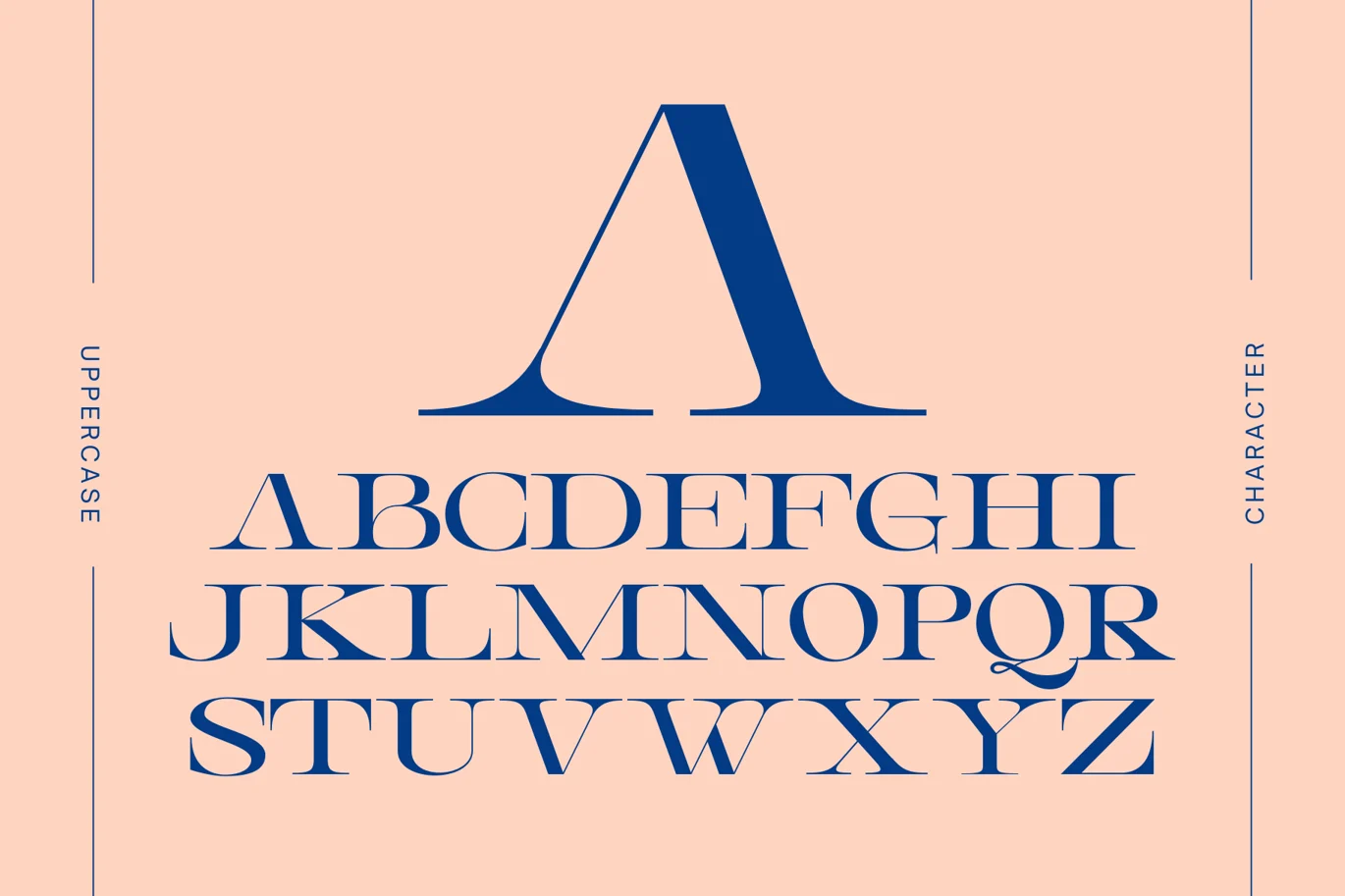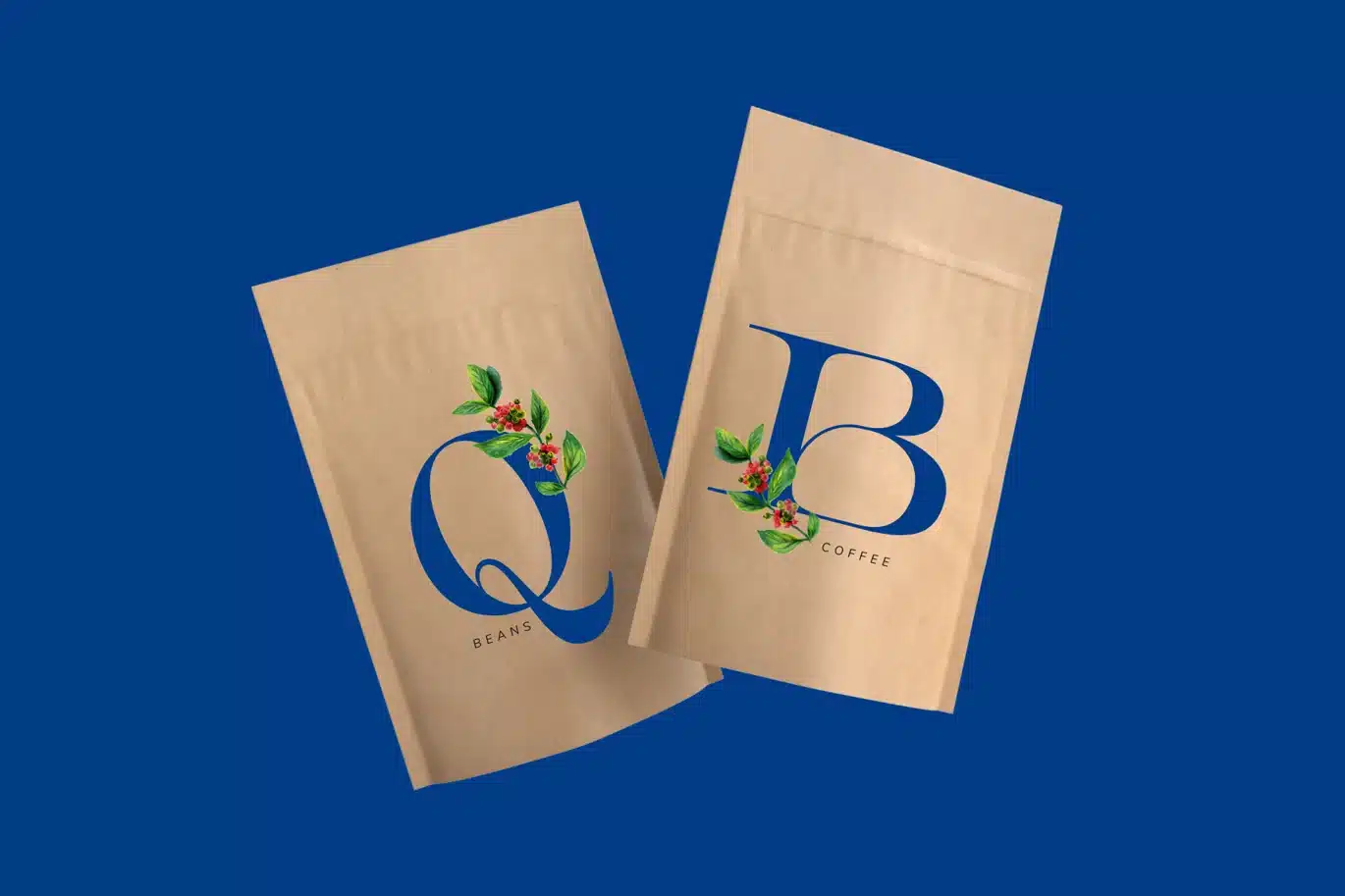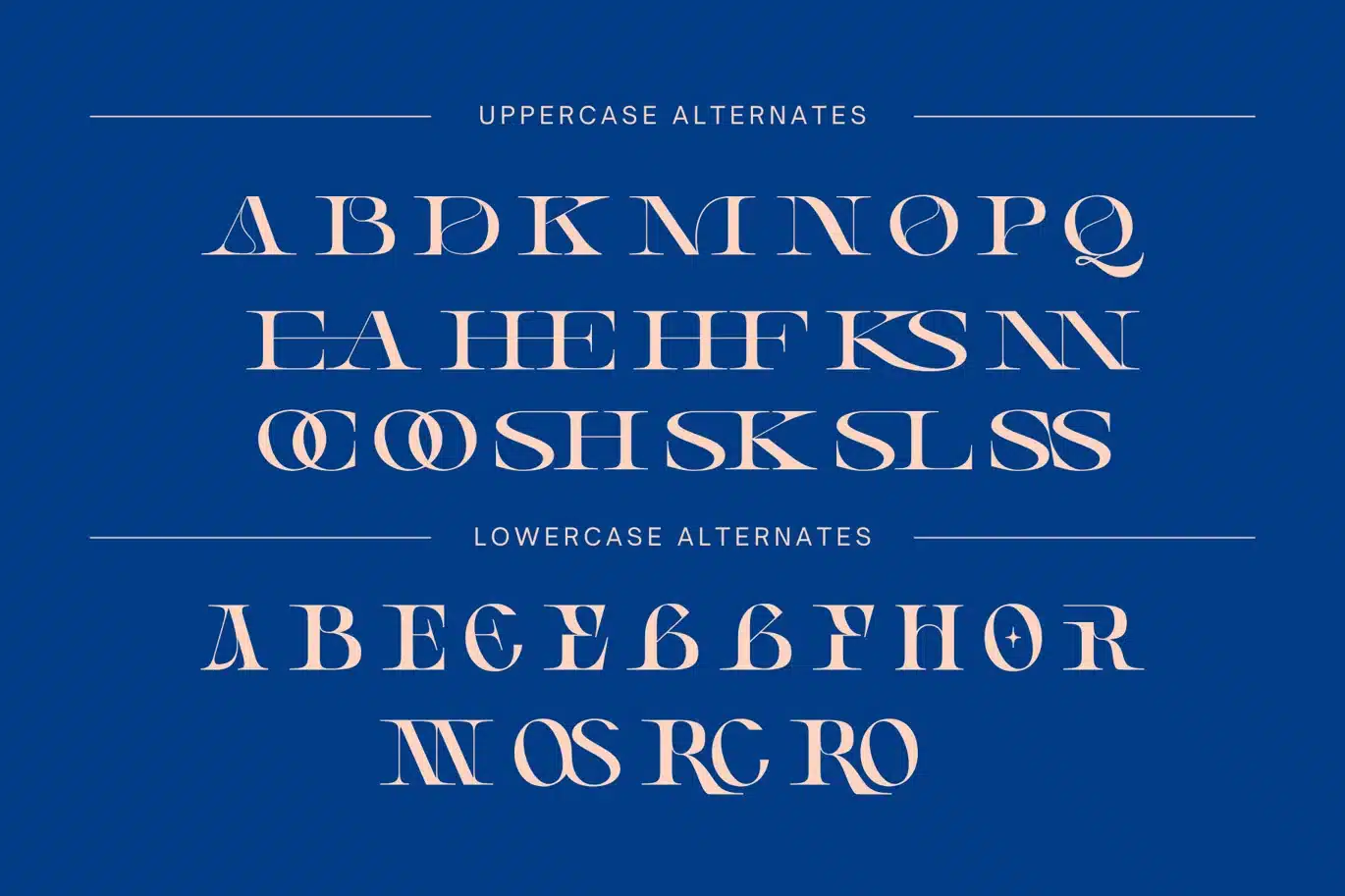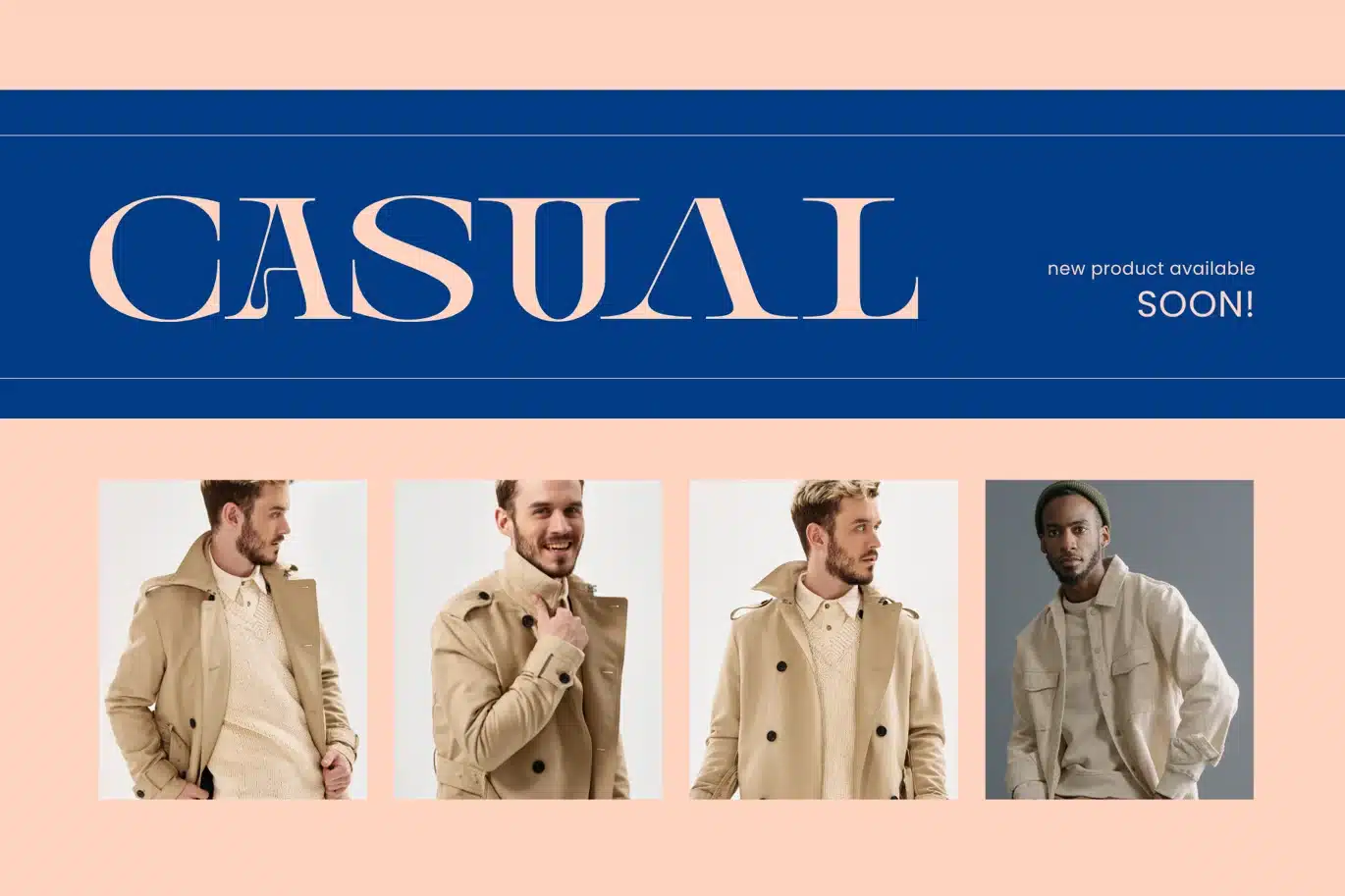
Vagly – Branding Logo Font
Vagly Font offers beautiful typographic harmony for a diversity of design projects, including logos & branding, social media posts, advertisements & product designs.